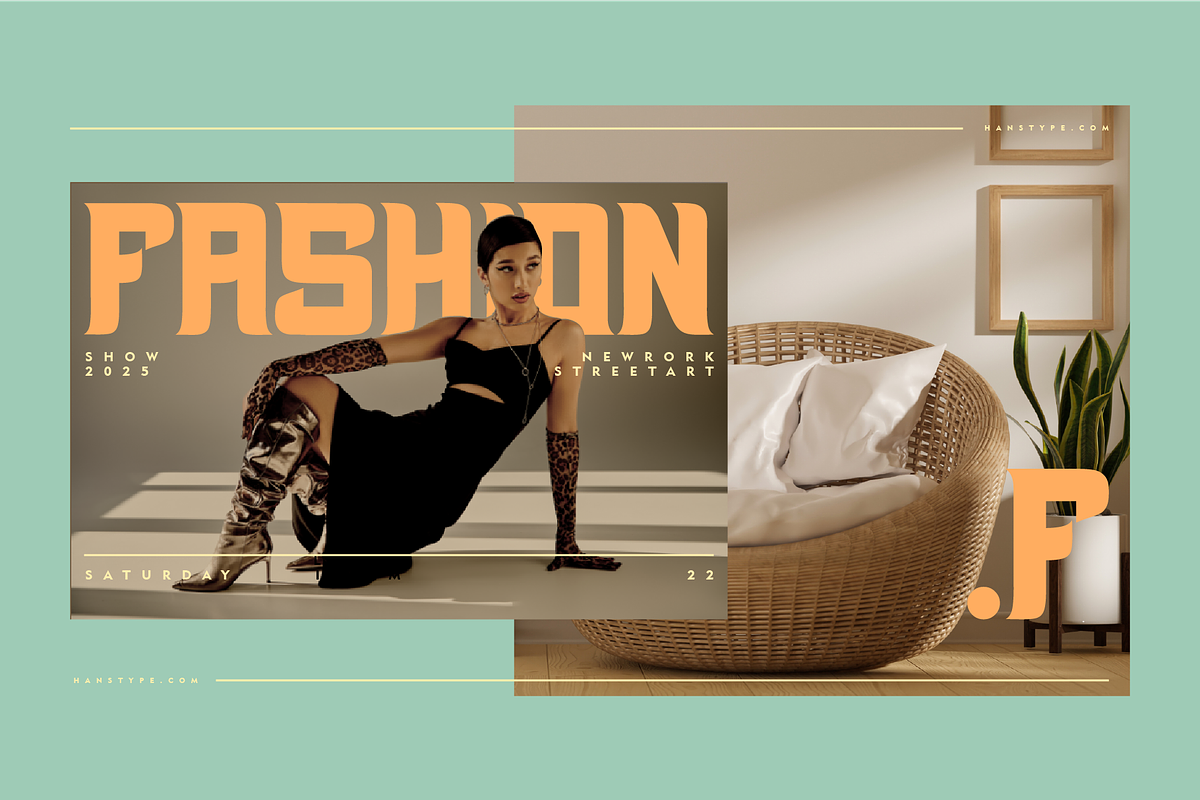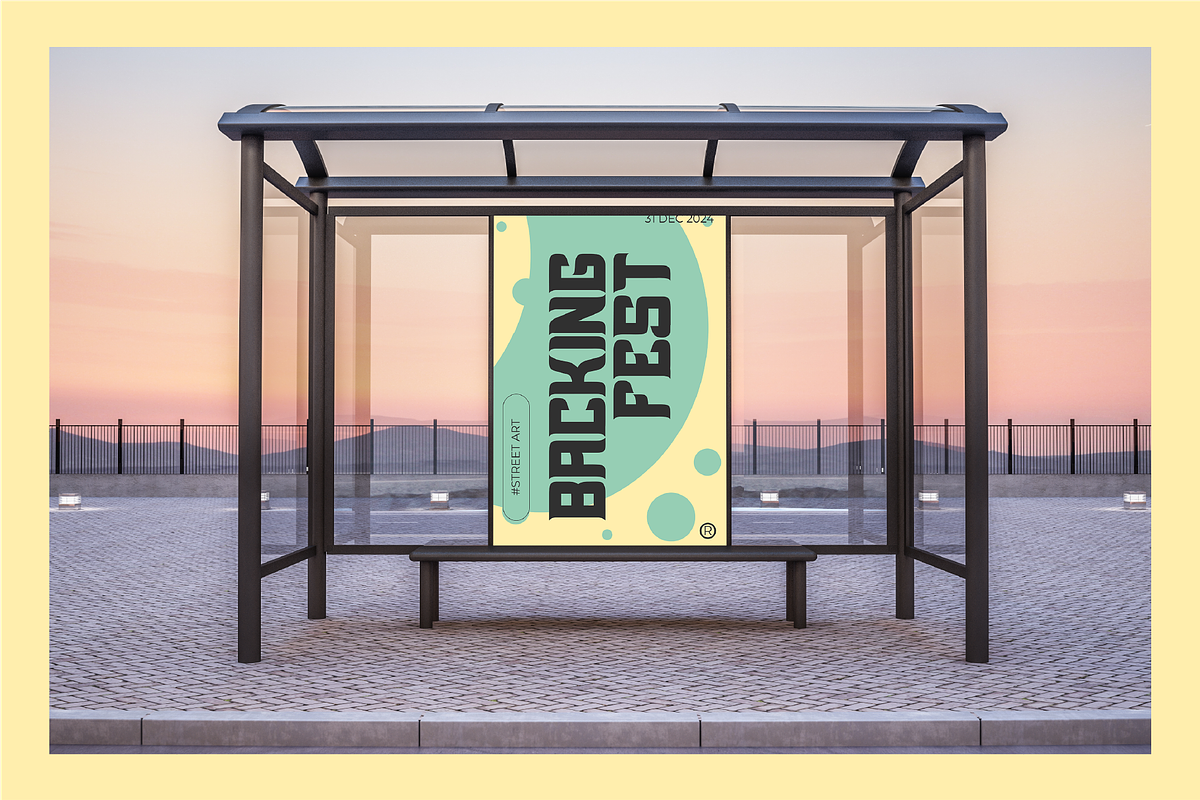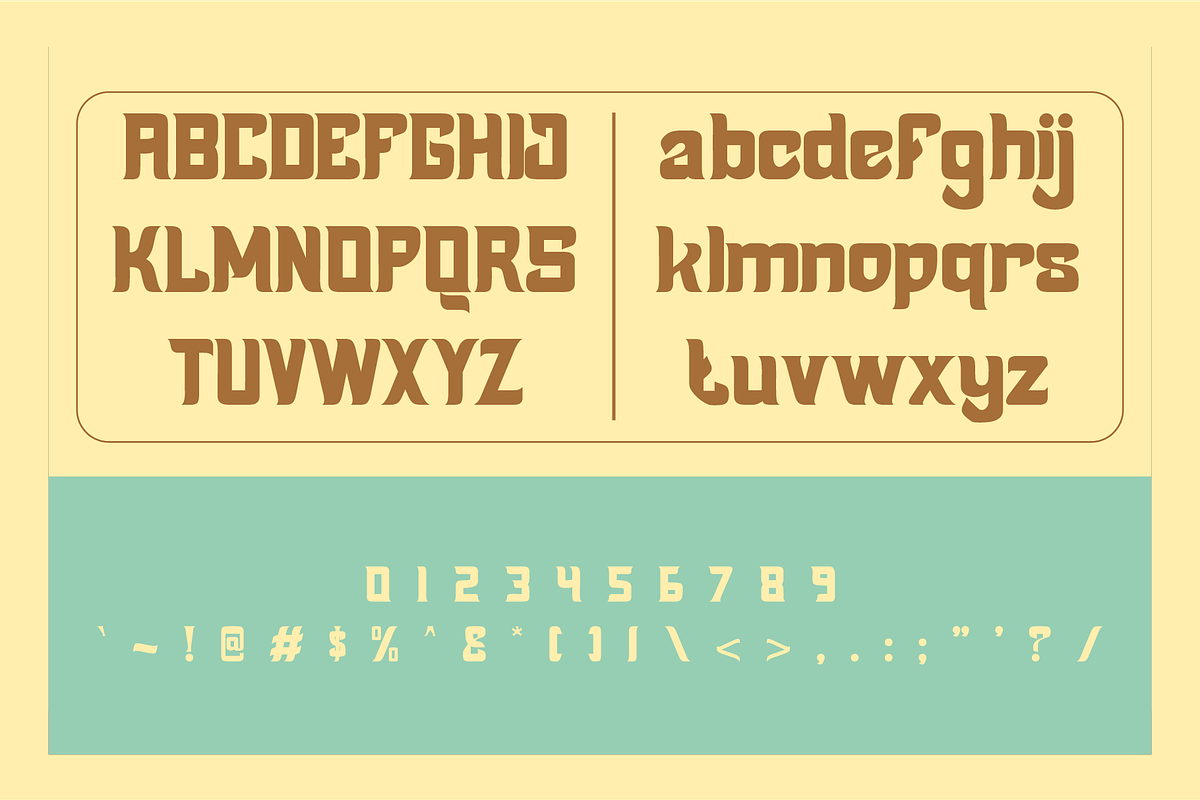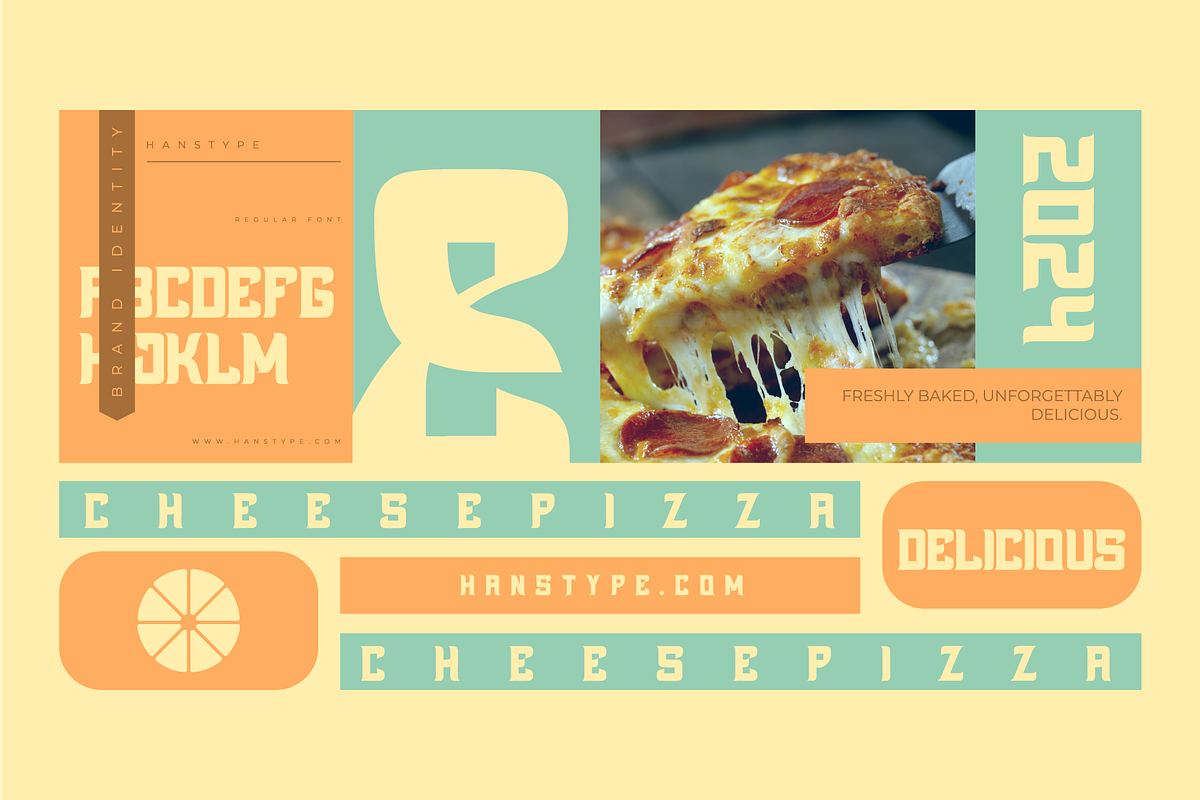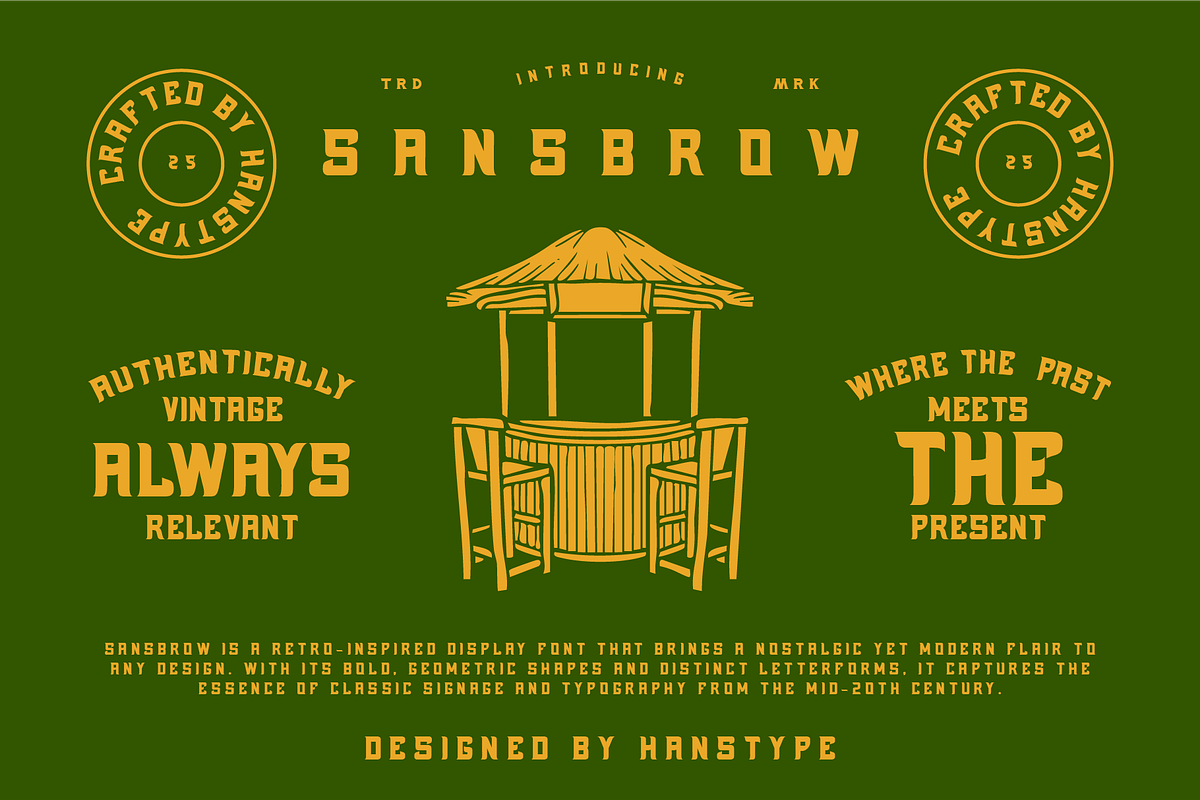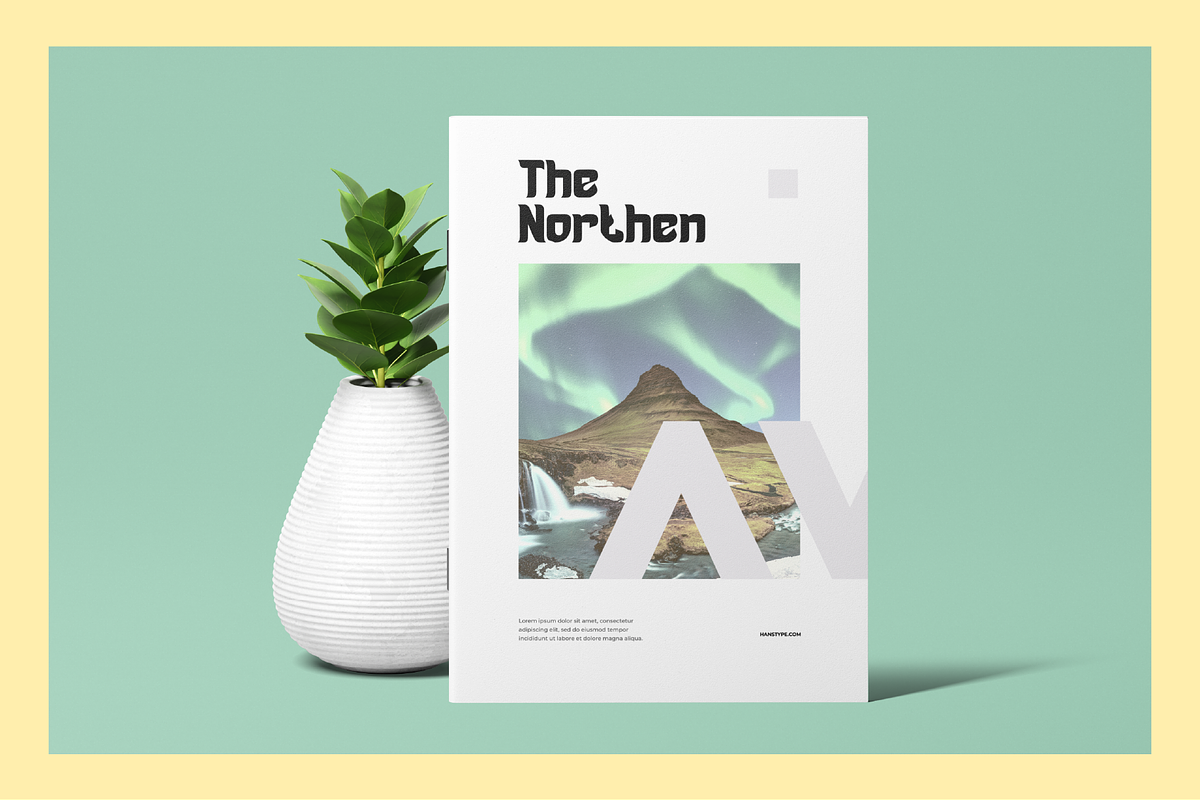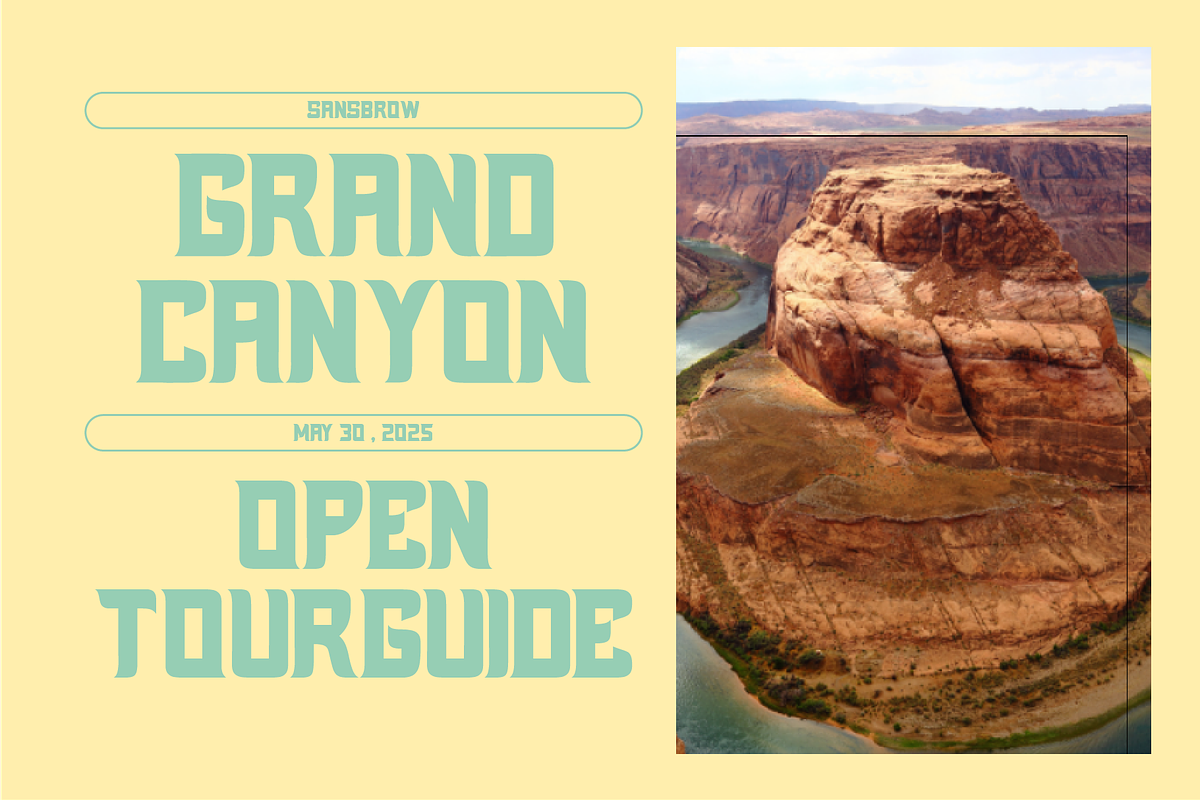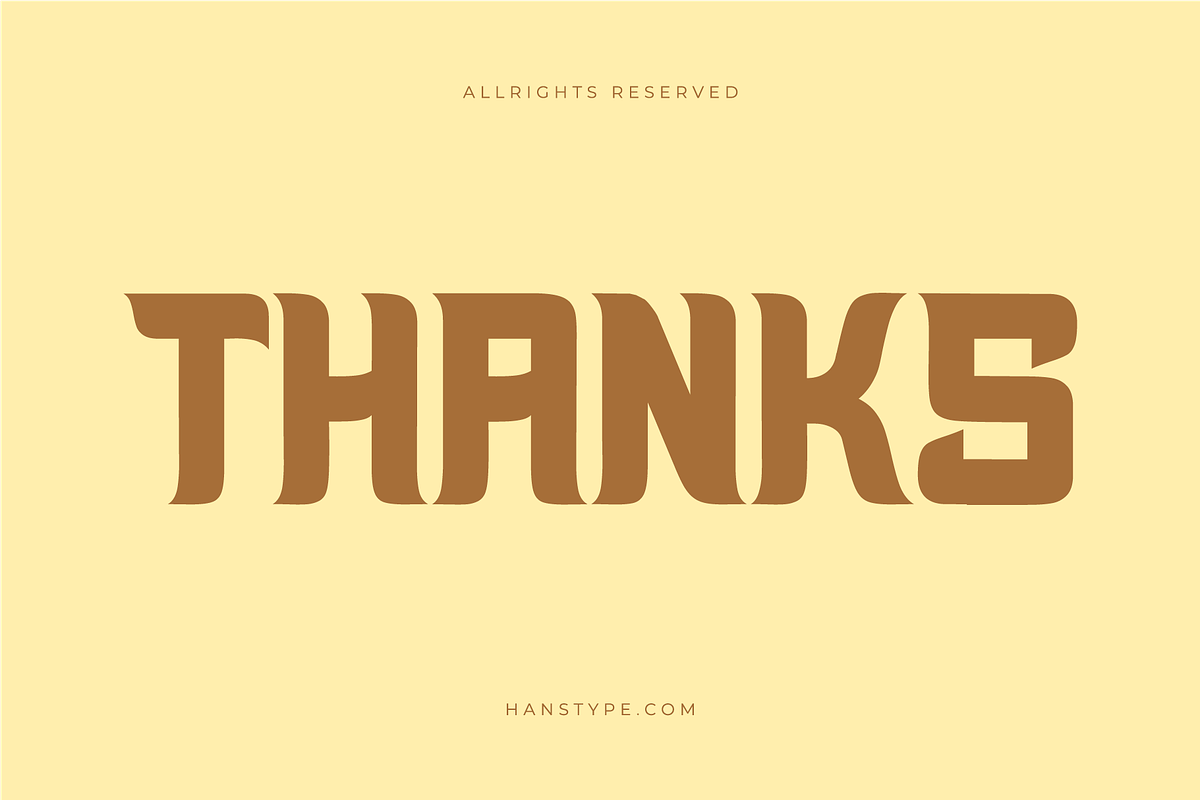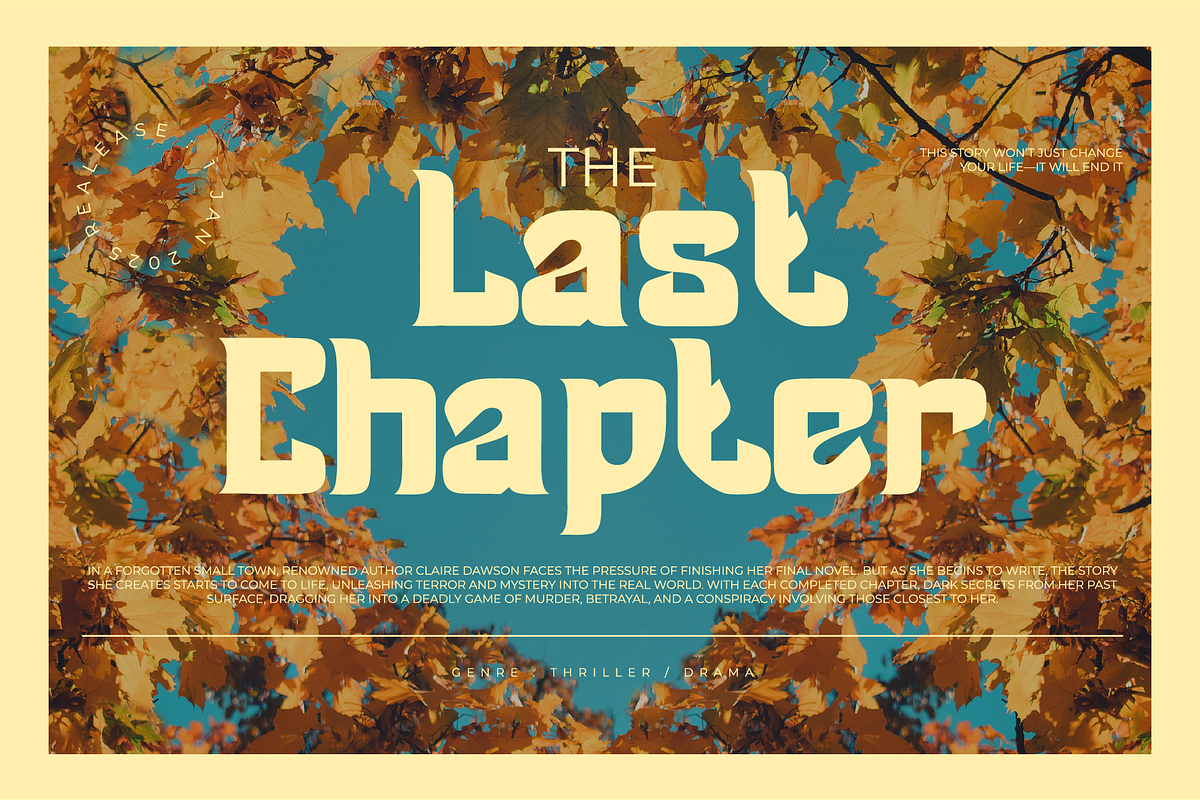
Sansbrow - Retro Display Font
Sansbrow is a retro-inspired display font that brings a nostalgic yet modern flair to any design. With its bold, geometric shapes and distinct letterforms, it captures the essence of classic signage and typography from the mid-20th century.